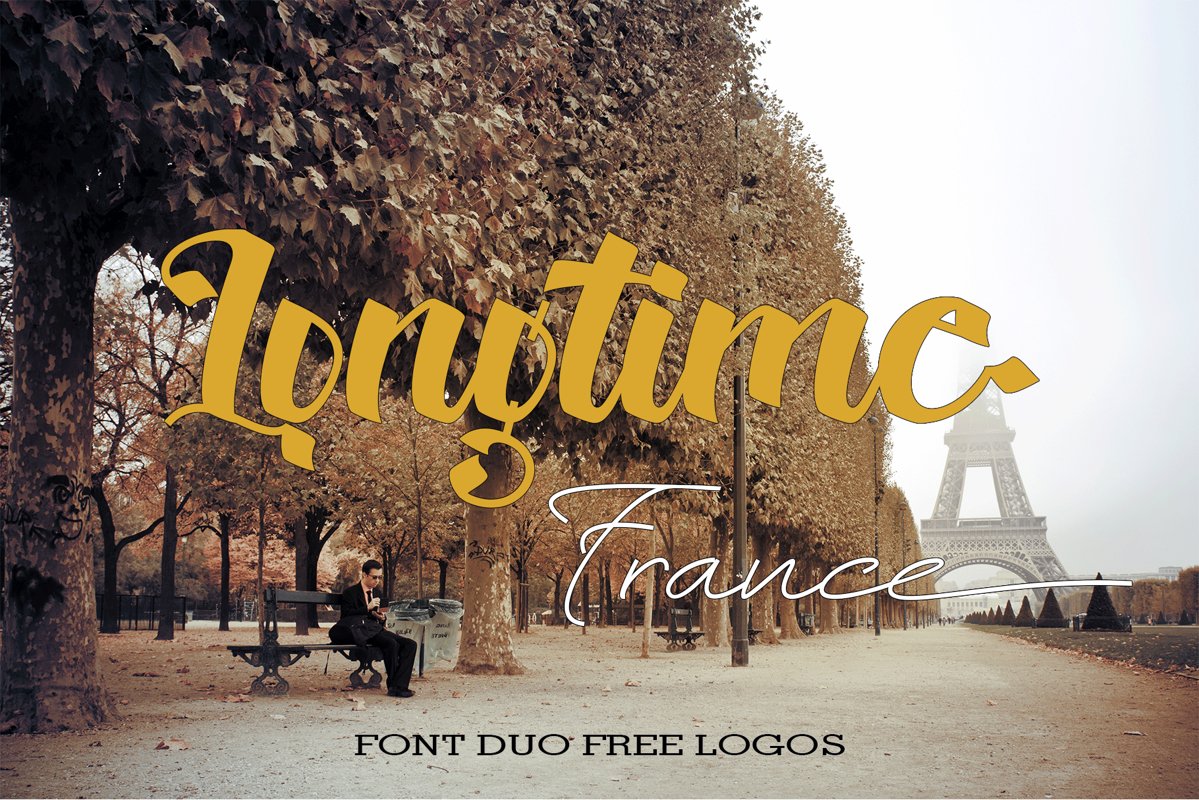
Longtime France
Longtime
France
Longtime France font Duo comes with a new concept for your design needs, which is suitable for logos, Branding, packing, card IDs, invitation cards, product labels as well as other necessities,, this font is also included free logos for you who need...